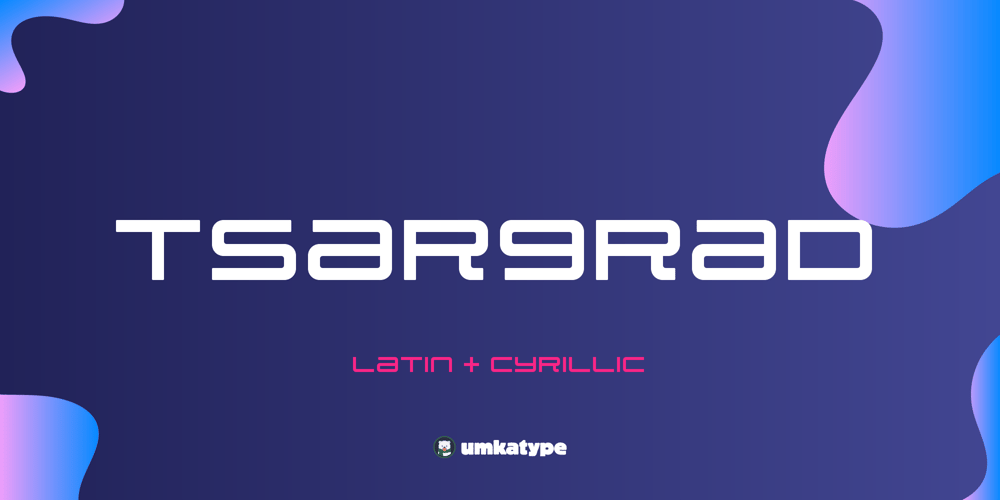
Tsargrad Font Family was designed by Alper Çakıcı and published by Umka Type. Tsargrad contains 1 styles and family package options. Tsargrad epitomizes modern elegance, offering unparalleled versatility for digital and print applications. With its complete Cyrillic language support, Tsargrad facilitates seamless communication across diverse linguistic landscapes. Its exquisite design seamlessly blends classic proportions with a contemporary allure, elevating it to a class above conventional fonts in its category.It supports 66 Languages:Russian, Afrikaans, Albanian, Asu, Basque, Bemba, Bena, Breton, Catalan, Chiga, Cornish, Danish, Dutch, English, Filipino, French, Friulian, Galician, German, Gusii, Indonesian, Irish, Italian, Kabuverdianu, Kalenjin, Kinyarwanda, Luo, Luxembourgish, Luyia, Machame, Makhuwa-Meetto, Makonde, Malagasy, Manx, Morisyen, North Ndebele, Norwegian Bokmål, Norwegian Nynorsk, Nyankole, Oromo, Portuguese, Quechua, Romansh, Rombo, Rundi, Rwa, Samburu, Sango, Sangu, Scottish Gaelic, Sena, Shambala, Shona, Soga, Somali, Spanish, Swahili, Swedish, Swiss German, Taita, Teso, Turkish, Uzbek (Latin), Volapük, Vunjo, Zulu